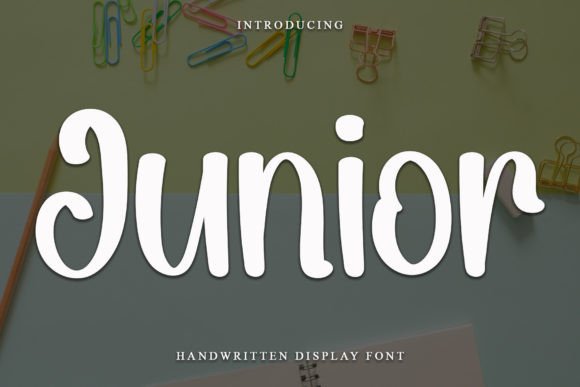
Unleash the charm of autumn with Junior Font, a captivating display typeface that embodies the spirit of the season. Its graceful letterforms and warm, earthy tones evoke the nostalgia and coziness of fall, making it the perfect choice for autumn-themed projects, seasonal greetings, and nature-inspired branding.
Picture a business card that captures the essence of autumn, with your contact information elegantly displayed in Junior Font's enchanting script. The graceful curves and swirling strokes add a touch of whimsical sophistication, leaving a lasting impression on potential clients.
Or envision invitations adorned with Junior Font, inviting guests to a magical autumn gathering amidst falling leaves and crisp air. Its warm, earthy tones create an ambiance of rustic charm, inviting guests to immerse themselves in the beauty of the season.
With Junior Font, you have the power to transform your designs into enchanting autumnal masterpieces. Its versatile nature allows you to experiment with different design elements, from elegant headers to charming body text. The possibilities are endless, inviting you to explore a kaleidoscope of autumnal inspiration.
So whether you're a designer seeking to create captivating designs or a business owner looking to leave a lasting impression, Junior Font is the key to unlocking the enchanting beauty of autumn. Embrace the charm and coziness of the season, and let your creations bloom with the magic of Junior Font.